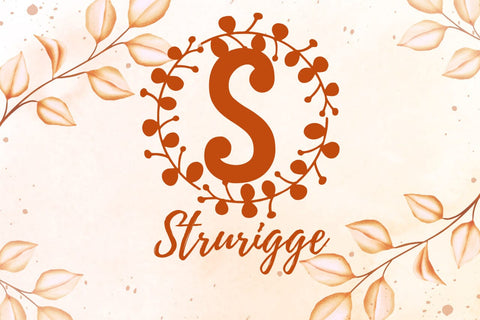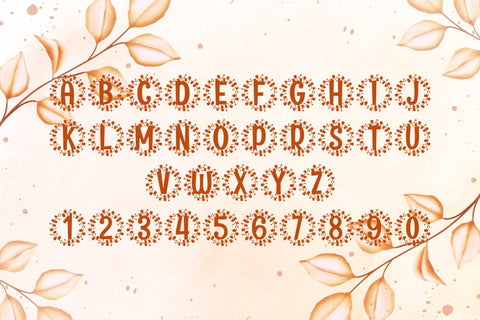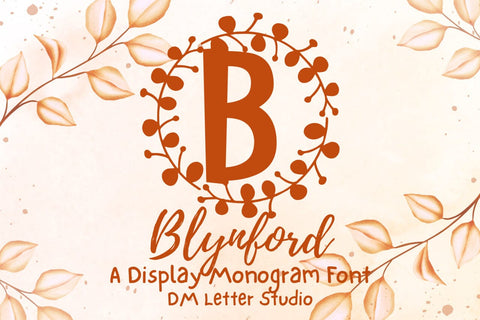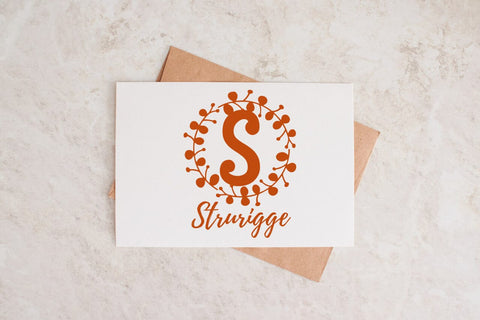
Blynford Monogram Font
Meet Blynford, the Monogram Font
Blynford Monogram Font turns simple initials into poised, gallery-ready emblems. Strokes feel smooth and confident, while open counters keep tiny tags readable. Use it for wedding suites, boutique logos, keepsake gifts, and elegant packaging. In addition, Blynford pairs beautifully with modern serifs and quiet humanist sans fonts, so your layouts stay refined without extra work.
Where this monogram font shines
Set single, double, or triple initials for logos, seals, menus, and place cards. Then frame them with laurel rings, oval borders, or fine rules to echo the calm geometry. Since proportions favor symmetry and clarity, centered compositions come together in minutes. As a result, your thumbnails pop on marketplaces and your listings look consistent from invitations to signage. Blynford also scales smoothly from jewelry cards to foyer displays.
Design tips for Blynford Monogram
Keep initials large and let white space breathe. Pair the headline monogram with a soft serif for body text or a clean sans for labels. Add micro shadows, a fine inner stroke, or a delicate frame to create depth. Because the letterforms feel airy and balanced, textured stocks and metallic accents lift perceived value. However, keep the copy short so the monogram remains the hero on small favors and tags.
Select stylistic alternates for key letters
Curves tuned for foil, letterpress, engraving, laser, and clean vinyl cutting
Why creators choose Blynford
You want elegance that reads at a glance and sells across many product types. Blynford Monogram Font delivers steady clarity, quick layout, and a cohesive brand voice from invites to packaging and gifts.